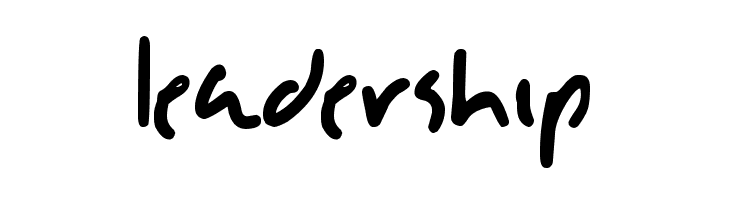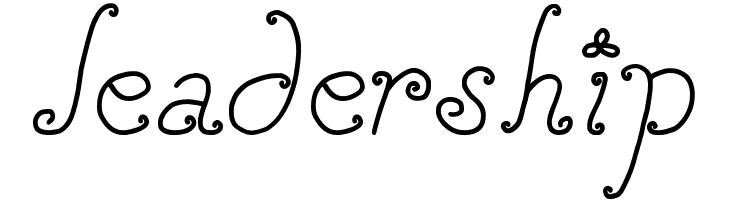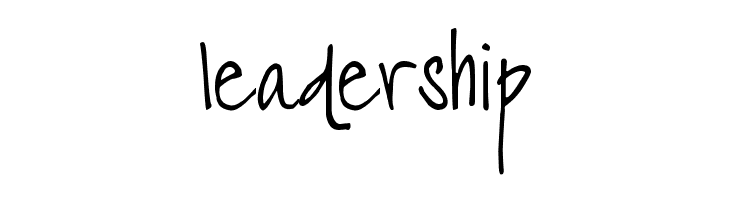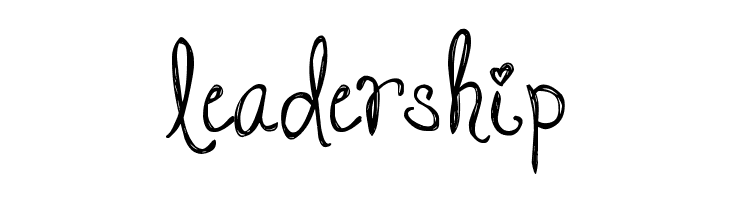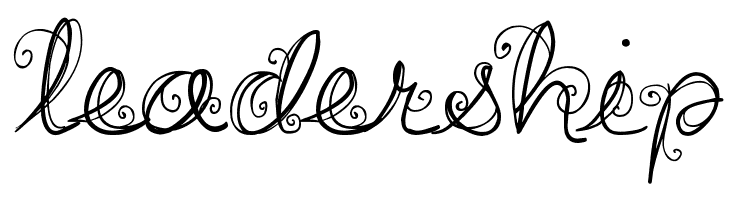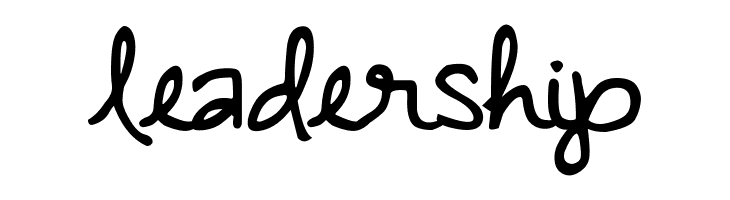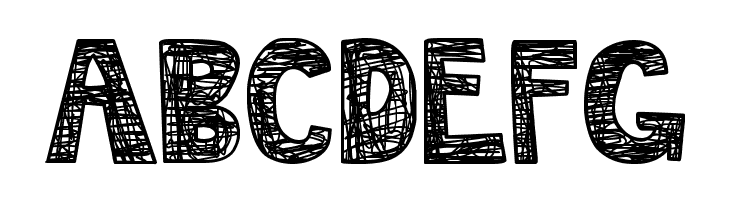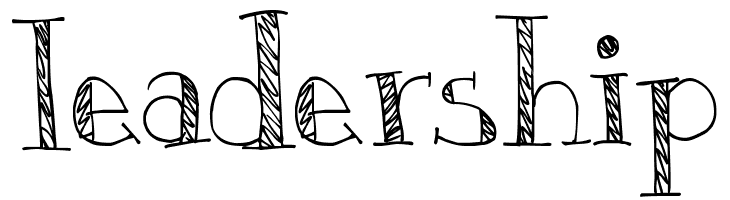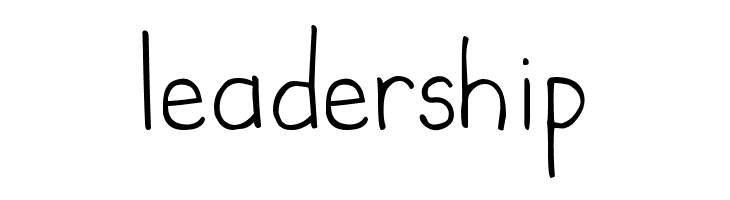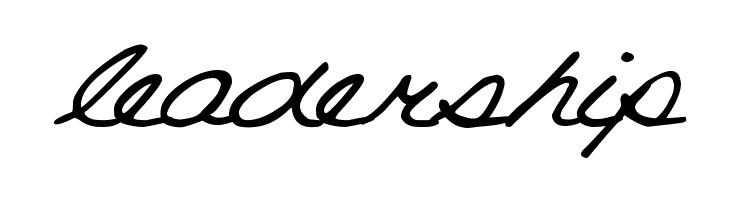
• DJB Hunky Chunk
A bold, playful font with thick, rounded letters and a friendly style.
• DJB Hunky Chunk Bold
A bold, playful font with rounded, chunky letters and a whimsical style.
• DJB Jacked Up Kinda Luv
A playful, handwritten font with whimsical embellishments and dynamic strokes.
• DJB Jenna
A playful, informal handwritten font with smooth, flowing lines.
• DJB Just an Outty
A playful, hand-drawn outlined font with a whimsical and casual style.
• DJB LIZ
A playful, casual handwritten font with a lively and dynamic style.
• DJB Me and My Shadow
A bold, shadowed handwritten font with a playful and informal style.
• DJB Me and My Shadow Dark
A bold, playful handwritten font with a casual and friendly style.
• DJB Merry
• DJB Mess in My Head Bold
A bold, hand-drawn font with a playful, scribbled texture.
• DJB MiaScript
A playful, casual handwritten font with fluid, connected strokes.
• DJB Monkey Scratches
A playful, hand-drawn font with a sketch-like, whimsical style.
• DJB MrsWebster
• DJB My Mood Ring Says Blah
A playful handwritten font with a whimsical and informal style.
• DJB Play Misty for Me
A playful, hand-drawn font with a whimsical and friendly style.
• DJB Please Explain
A playful, bold handwritten font with a casual and friendly style.
• DJB Poppyseed
A playful, handwritten font with a casual and friendly vibe.
• DJB Room Mother
A playful, whimsical script font with fluid, connected strokes.
• DJB ROOM MOTHER script
A playful, cursive script font with a natural, handwritten style.
• DJB Sarah prints
A playful, casual handwritten font with fluid strokes and a dynamic style.
• DJB Sissy